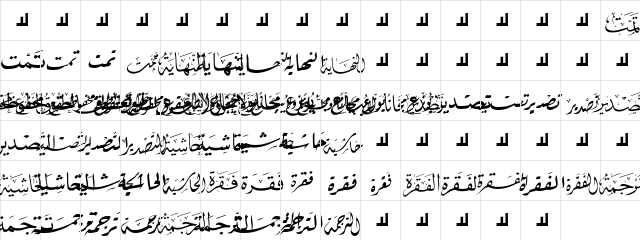
Mcs Book Title 4 Normal
Design Context for Mcs Book Title 4
Mcs Book Title 4 is a composed and adaptable typeface that performs quietly and consistently across a wide range of design contexts.